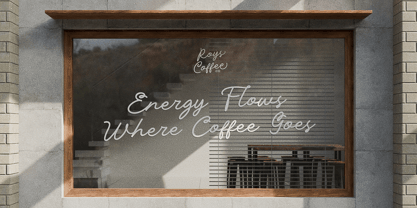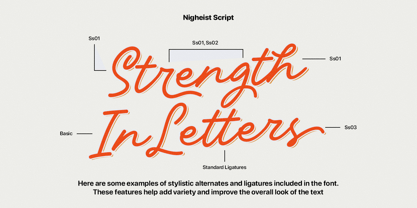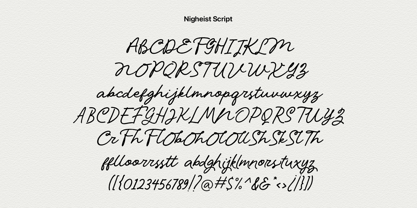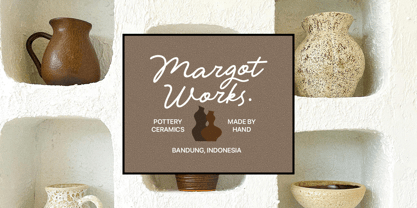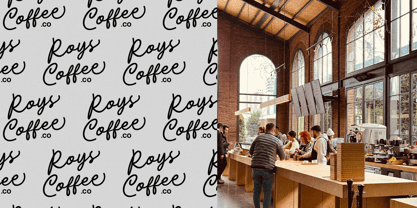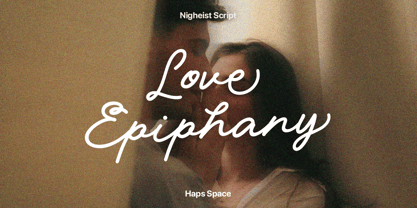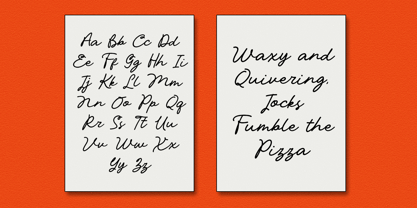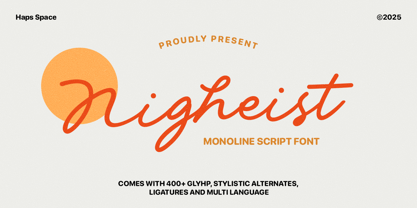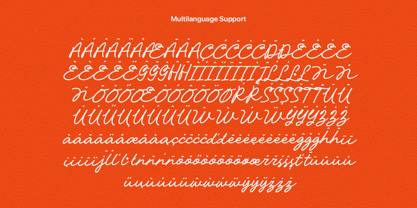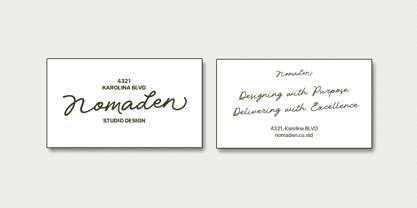
Nigheist Script
by Haps Space
The Nigheist Script Font Family was designed by Haris Purnama Putra, Egi Ahmad Mufid and published by Haps Space. Nigheist Script contains 1 styles.
Nigheist Monoline Handwritten is a modern monoline script font featuring a smooth and elegant handwritten style. Designed with balanced curves and consistent stroke weight, this typeface offers a clean and contemporary appearance suitable for various creative applications.
Ideally suited for branding, packaging, logotypes, editorial layouts, and social media graphics. Its refined handwritten appearance adds a personal yet professional touch, making it an excellent option for both digital and printed creative works.
Designers: Haris Purnama Putra, Egi Ahmad Mufid
Publisher: Haps Space
Foundry: Haps Space